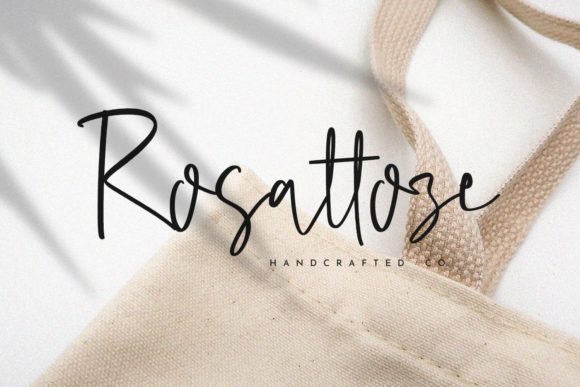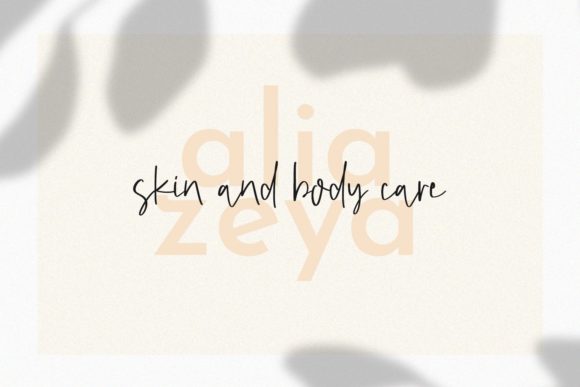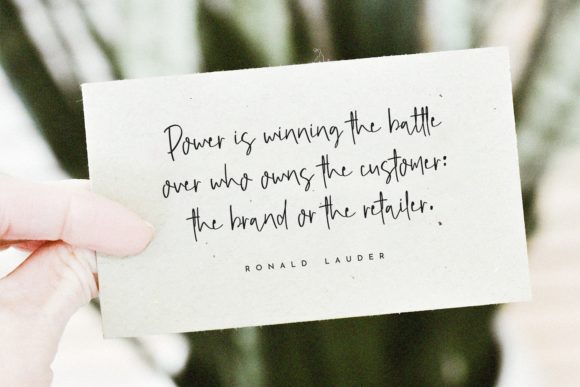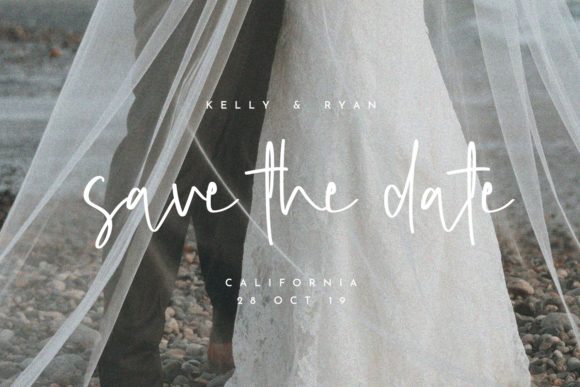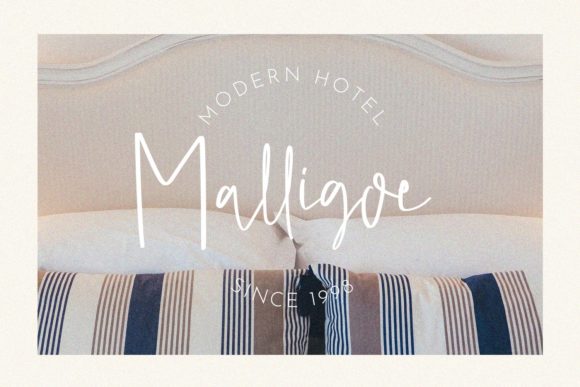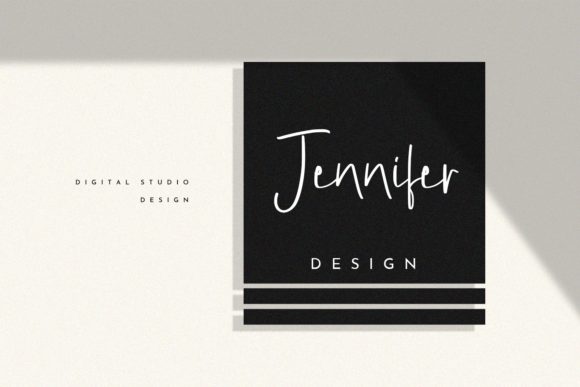
Introduction to Malligoe Font
Malligoe is a contemporary script font.
It’s original look makes it perfect for a wide variety of projects .
Malligoe Font offers exceptional quality and versatility, making it a valuable addition to your design toolkit. Whether you’re creating for personal projects or commercial use, Malligoe Font delivers professional results.